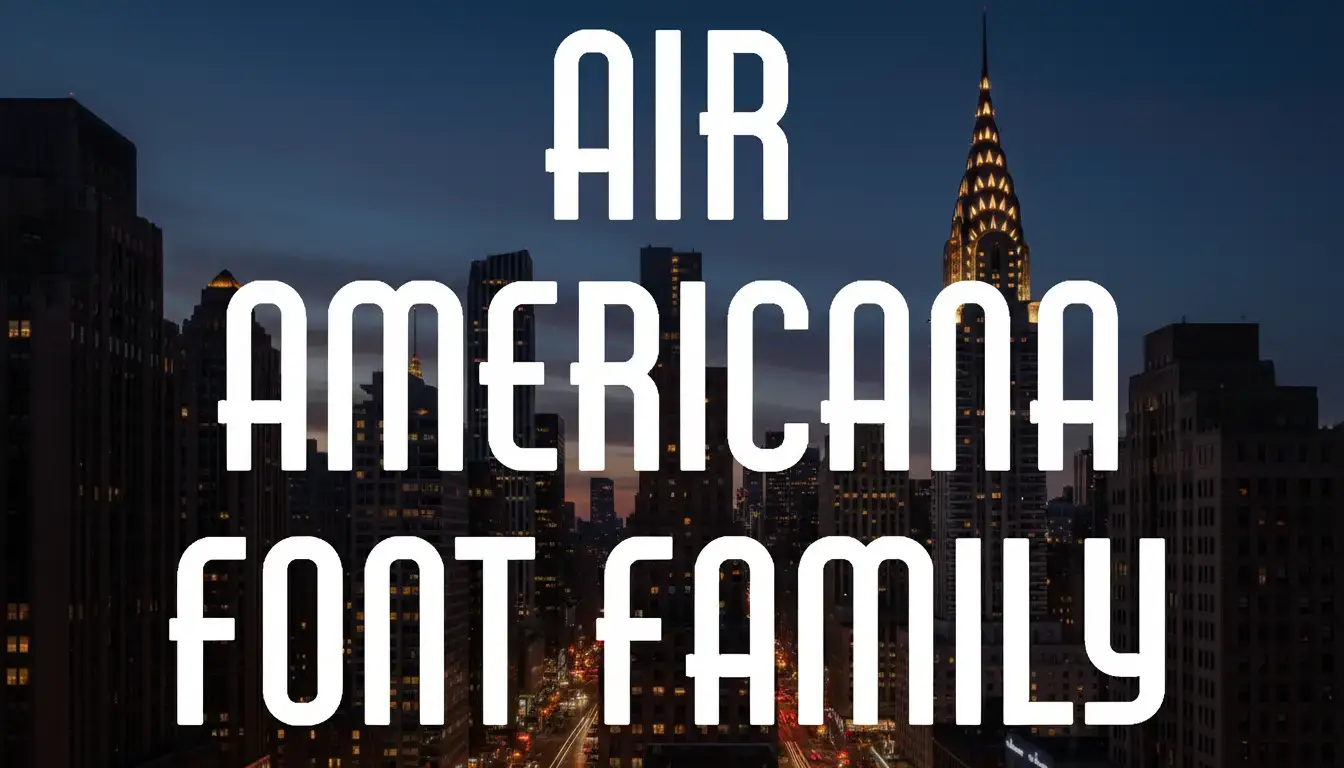
Air Americana Font Family
Air Americana is a retro display sans-serif font family designed by Tiago Sá. The typeface’s story began in 2014 when the designer was inspired by the nostalgic, vintage logo of the historic Air America airline. After more than eight years, the family underwent a comprehensive redesign to refine its glyph architecture and significantly expand its weights.
Air Americana Font Family is a fancy font designed by Tiago Sá. Bold and full of character, it's built to stand out rather than blend in. You get ten styles in one free ZIP, and the preview above lets you test each one before you download.
- Characters: A–Z, 0–9 and basic punctuation
What You Can Type With Air Americana Font Family
Air Americana Font Family is an all-caps font: it only has capital letters. Lowercase letters will show up in a different font or as empty boxes, so turn on Caps Lock when you type. All ten numbers are included. Everyday marks like &, !, ? and @ are there too. It has 2 accented letters, but not the full set for Spanish or French, so test any non-English words first.
Where Air Americana Font Family Works Best
Air Americana Font Family is a natural fit for posters, logos and eye-catching headlines. Use it for one standout word or headline and let simpler fonts handle the rest. Because the family has more than one style, you can mix them in a single design for headings, subheadings and highlights.